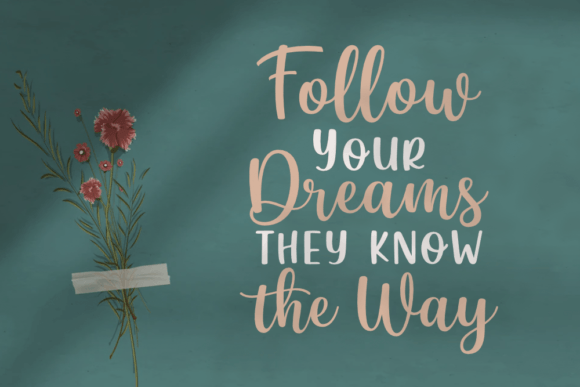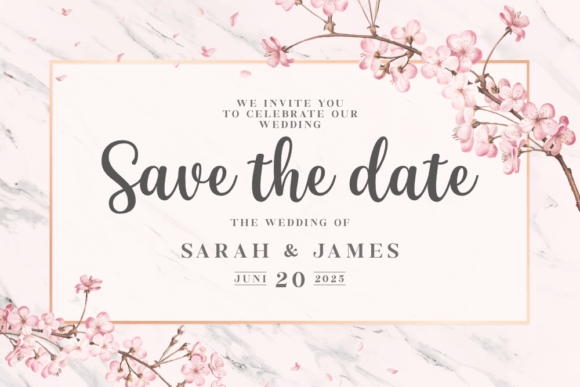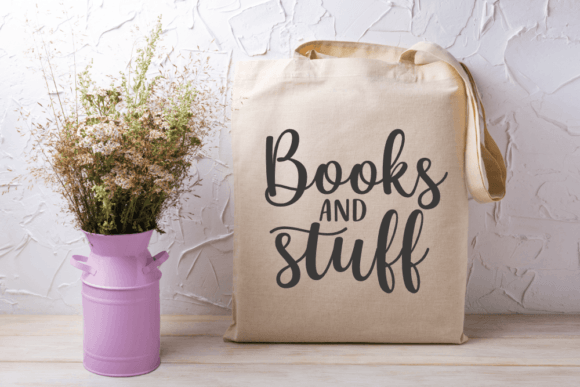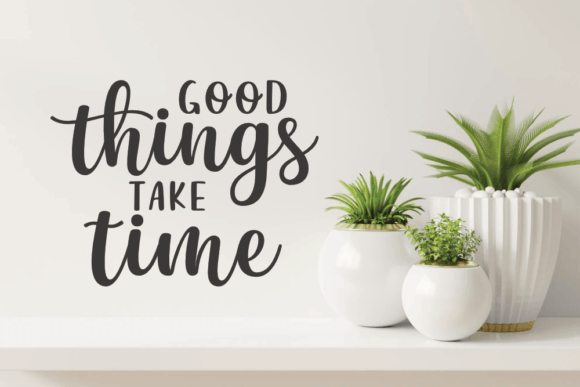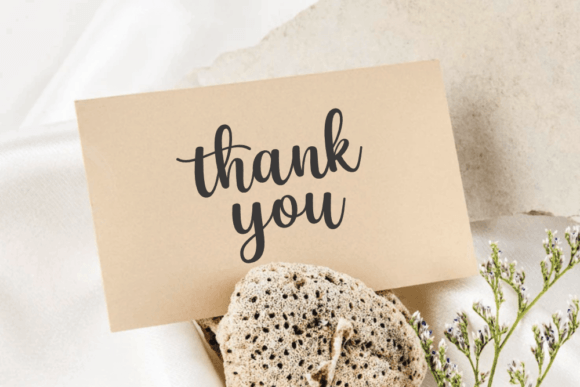
Scarlett Font
About Scarlett Font
Introducing Scarlett, the epitome of beauty and refinement in a script font. This font is a symbol of class, elegance, and modernity, making it a versatile choice for various design applications. Whether you’re working on logos, branding, invitations, stationery, wedding designs, or social media posts, Scarlett is designed to elevate your creations with its timeless and sophisticated aesthetic.
The beauty of Scarlett lies in its script style, which exudes a sense of grace and elegance. The flowing and well-crafted letters make it a perfect choice for projects that demand a classy and refined look. The modern touch adds a contemporary flair, ensuring that Scarlett is not just a font but a statement in itself.
Scarlett’s versatility is evident in its ability to enhance different design elements. It is well-suited for creating a cohesive and stylish visual identity, making it an ideal choice for logos and branding. The font’s elegant appearance also makes it perfect for upscale invitations, stationery, and wedding designs.
In the realm of social media and digital communication, Scarlett stands out with its modern look, adding a touch of sophistication to your posts and graphics. Its seamless integration into various design contexts makes it a valuable asset for anyone seeking a font that effortlessly combines beauty, elegance, and modernity.
Consider Scarlett as the font that effortlessly brings a touch of timeless beauty to your projects. Its classy, elegant, and modern aesthetic makes it a go-to choice for those who appreciate refined design. Let Scarlett be the font that speaks volumes about your commitment to sophistication and style in every creative endeavor.